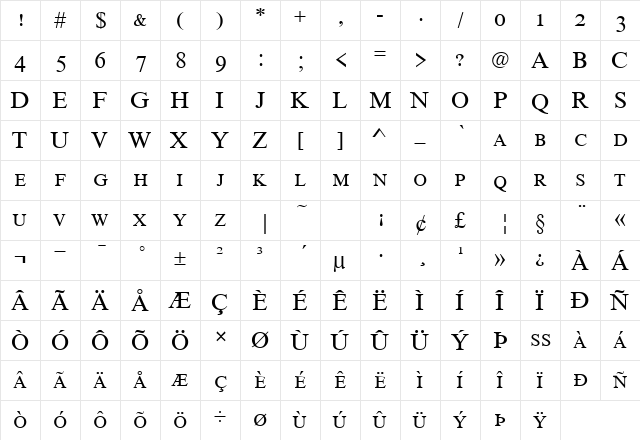
RomanSmc Regular
Design Context for RomanSmc Typeface
RomanSmc is a composed and adaptable typeface that performs quietly and consistently across a wide range of design contexts.